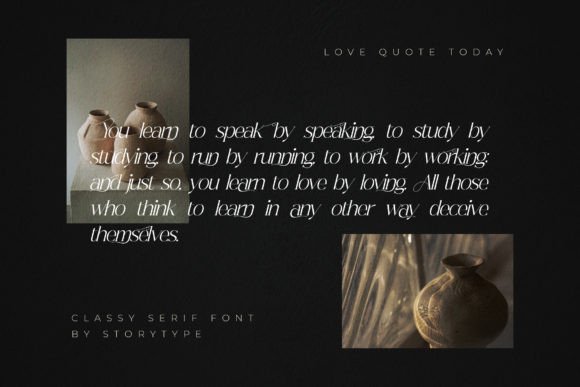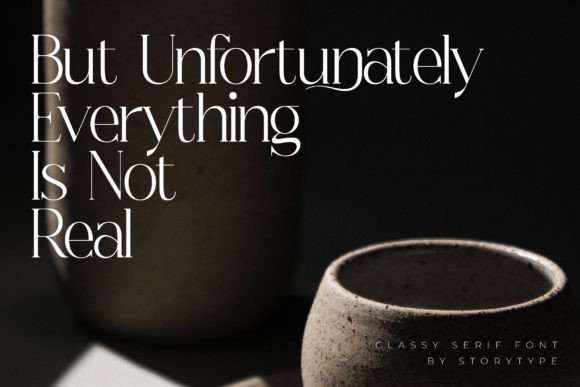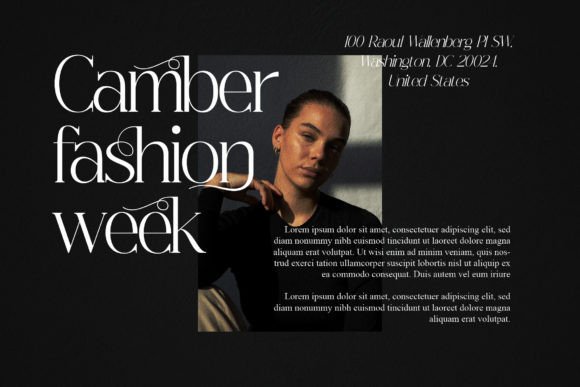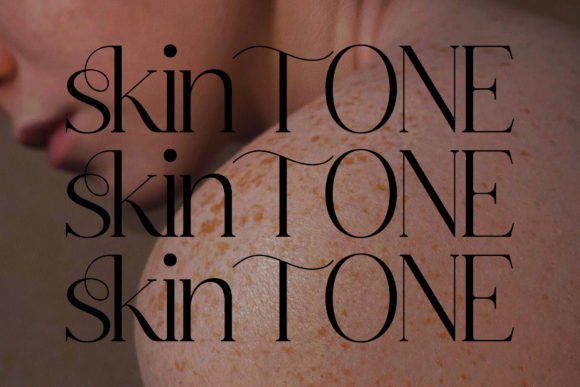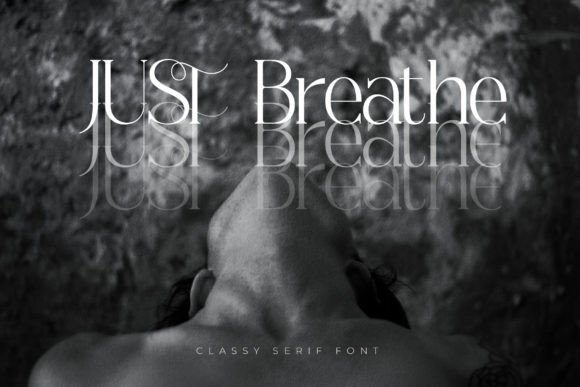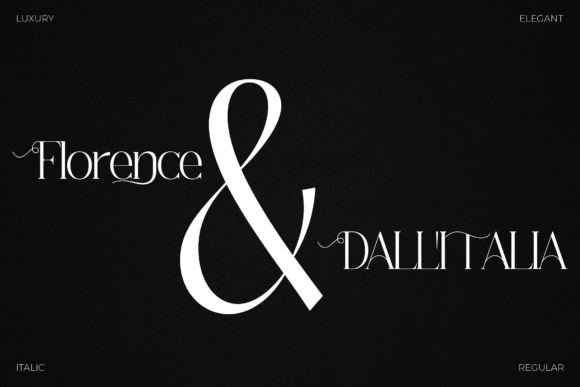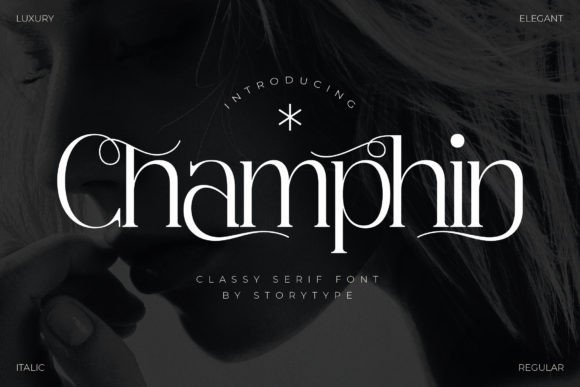
Introducing Champhin Font: Elevate Your Designs with Elegance and Sophistication
In the world of typography, fonts play a crucial role in conveying the tone and personality of a brand or design. For designers and crafters seeking to add a touch of luxury and sophistication to their work, Champhin Font is an excellent choice. This classic serif font boasts a unique style and modern look, making it perfect for a wide range of applications, from elegant logos and book titles to fashion brands and magazine layouts.
What is Champhin Font?
Champhin Font is a thoughtfully designed serif font that combines traditional elements with a contemporary twist. Its classic roots provide a sense of timelessness and reliability, while its modern take adds a fresh and sophisticated feel. This font is ideal for designers looking to create visually stunning and effective typography that stands out from the crowd.
Key Features of Champhin Font
- Unique Style: Champhin Font features a distinctive design that sets it apart from more traditional serif fonts. Its unique style makes it perfect for designers looking to add a touch of personality to their work.
- Modern Look: Despite its classic roots, Champhin Font has a surprisingly modern feel. This makes it an excellent choice for luxury brands, fashion designers, and anyone looking to create a sophisticated visual identity.
- Elegant and Luxurious: Champhin Font exudes elegance and luxury, making it perfect for high-end brands, book titles, and movie posters.
- Versatile: This font is incredibly versatile and can be used for a wide range of applications, including logos, titles, quotes, and more.
Use Cases for Champhin Font
Champhin Font is an incredibly versatile font that can be used in a variety of contexts. Here are some of the most popular use cases:
- Elegant Logos: Create stunning logos for luxury brands, fashion designers, and high-end businesses.
- Book or Movie Title Design: Add a touch of sophistication to book titles, movie posters, and DVD covers.
- Fashion Brands: Use Champhin Font to create stylish and elegant typography for fashion brands, clothing labels, and accessories.
- Magazines and Newspapers: Elevate your magazine or newspaper layouts with Champhin Font’s classic yet modern design.
- Lettering and Quotes: Create beautiful lettering and quotes for social media, posters, and other marketing materials.
Why Choose Champhin Font?
With so many fonts available, why choose Champhin Font? Here are just a few reasons:
- Unique Design: Champhin Font offers a unique design that will help your work stand out from the crowd.
- High-Quality Typography: This font is designed with high-quality typography in mind, ensuring that your work looks professional and polished.
- Versatility: This font can be used for a wide range of applications, making it a great addition to any designer’s toolkit.
Champhin Font is a versatile and elegant serif font that is perfect for designers and crafters looking to add a touch of luxury and sophistication to their work. With its unique style, modern look, and high-quality typography, this font is sure to elevate your designs and help you create visually stunning and effective typography. Whether you’re working on a logo, book title, fashion brand, or magazine layout, Champhin Font is an excellent choice.